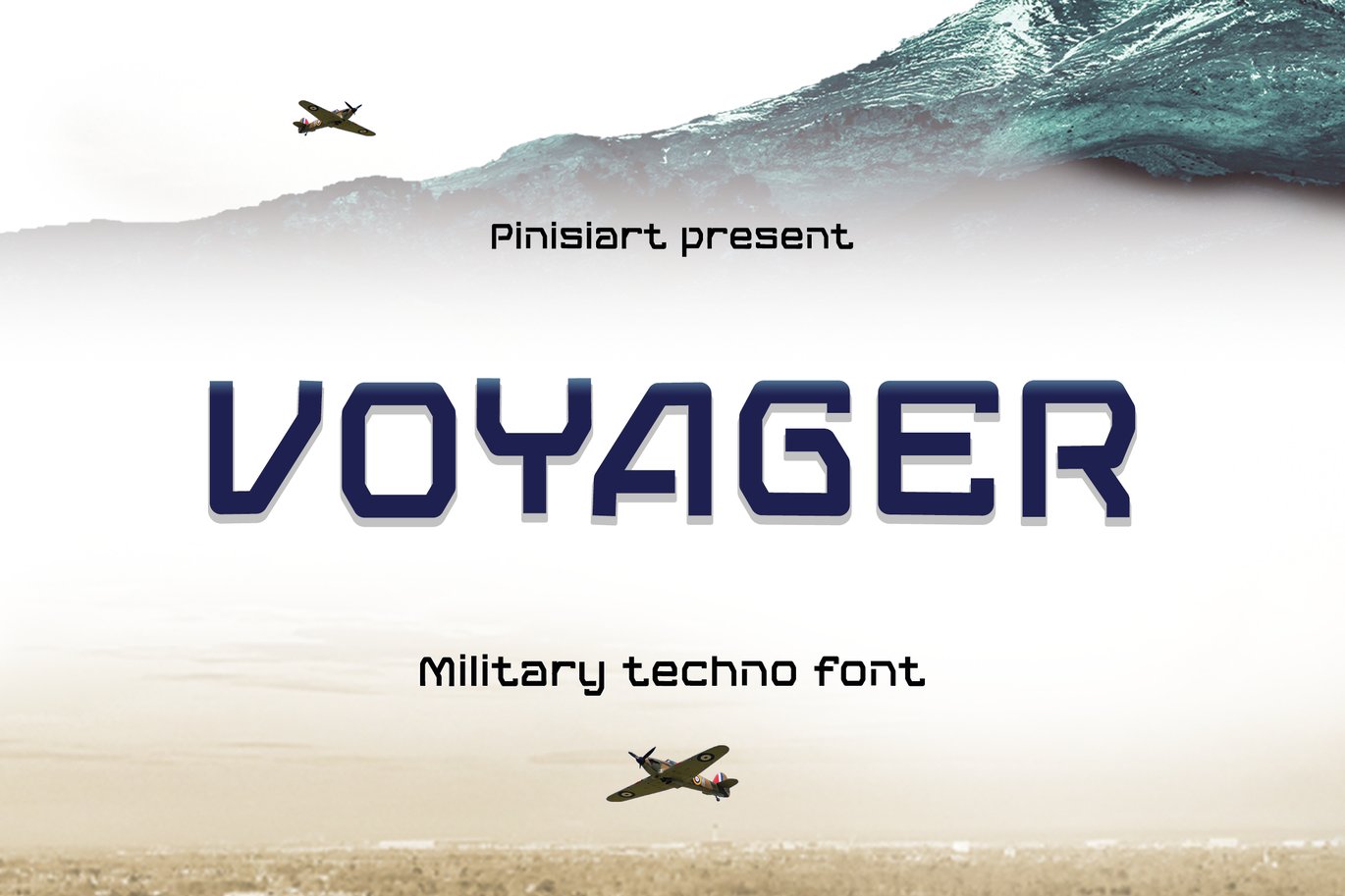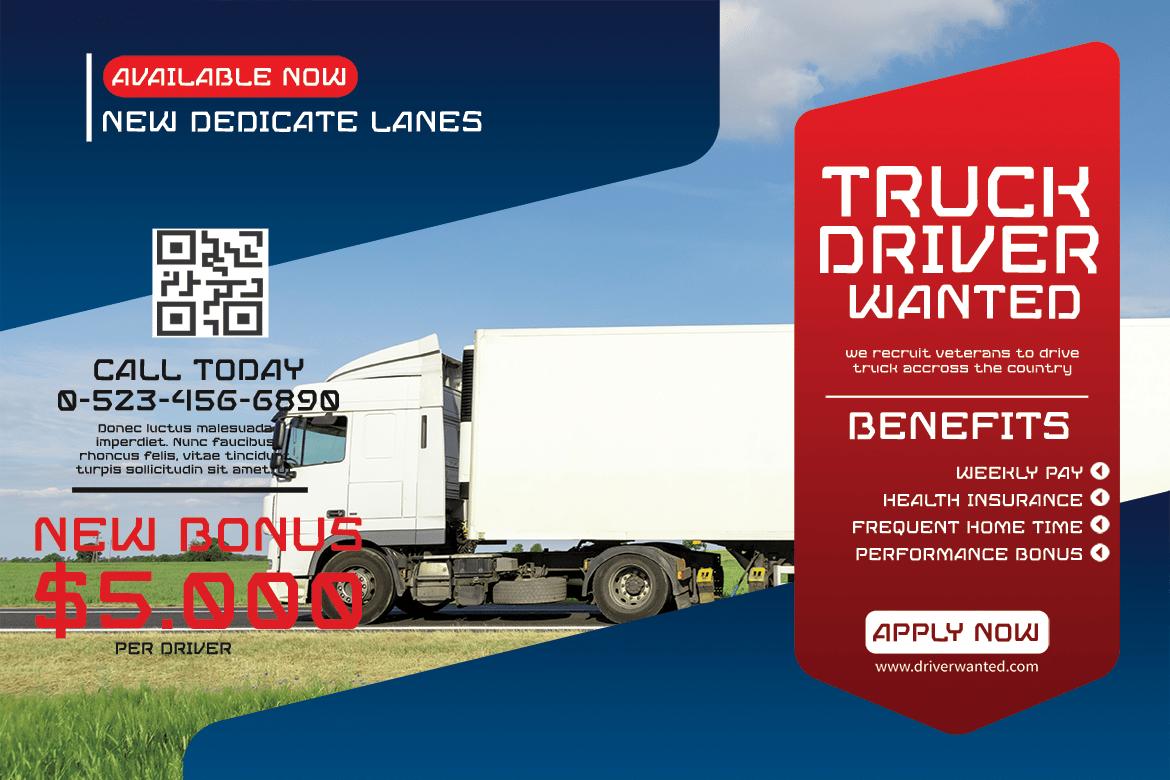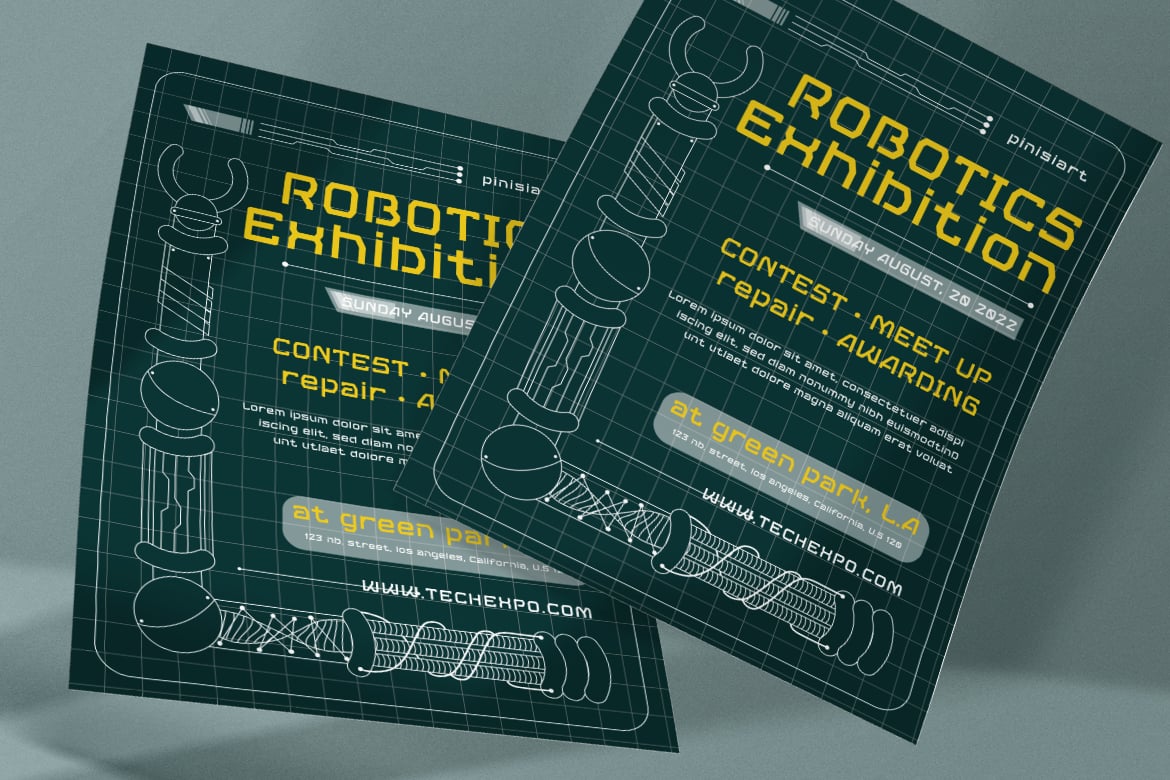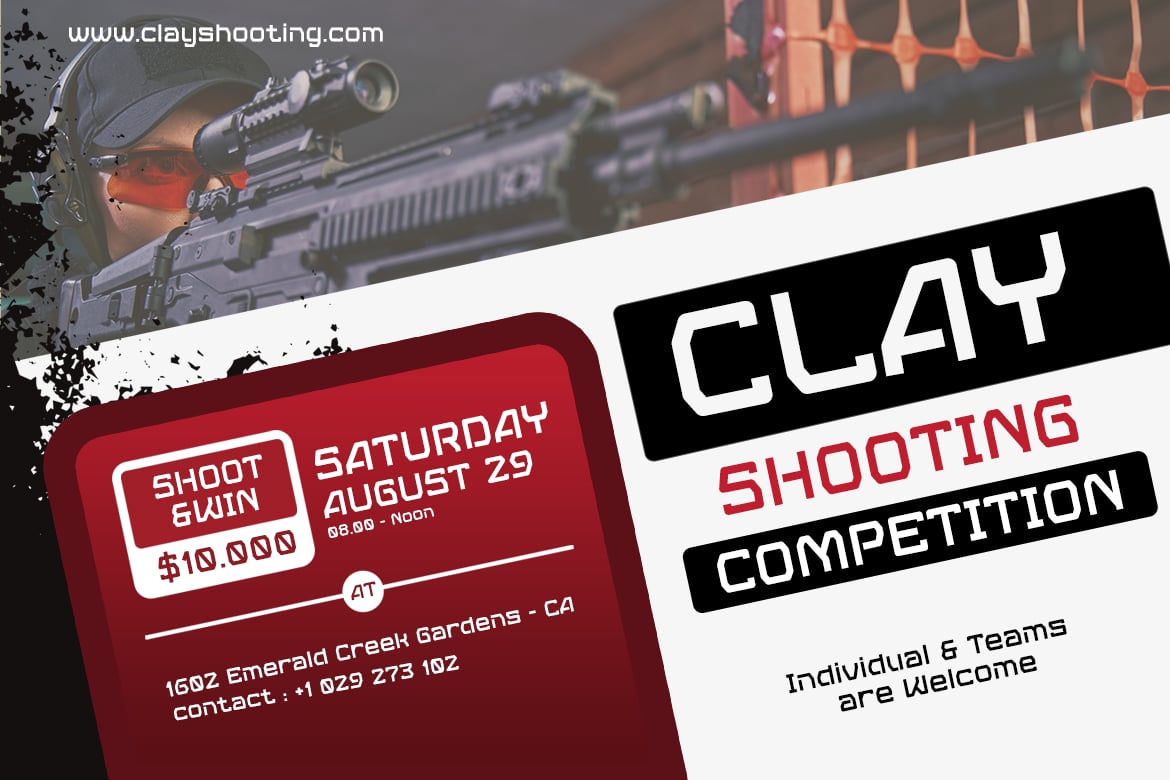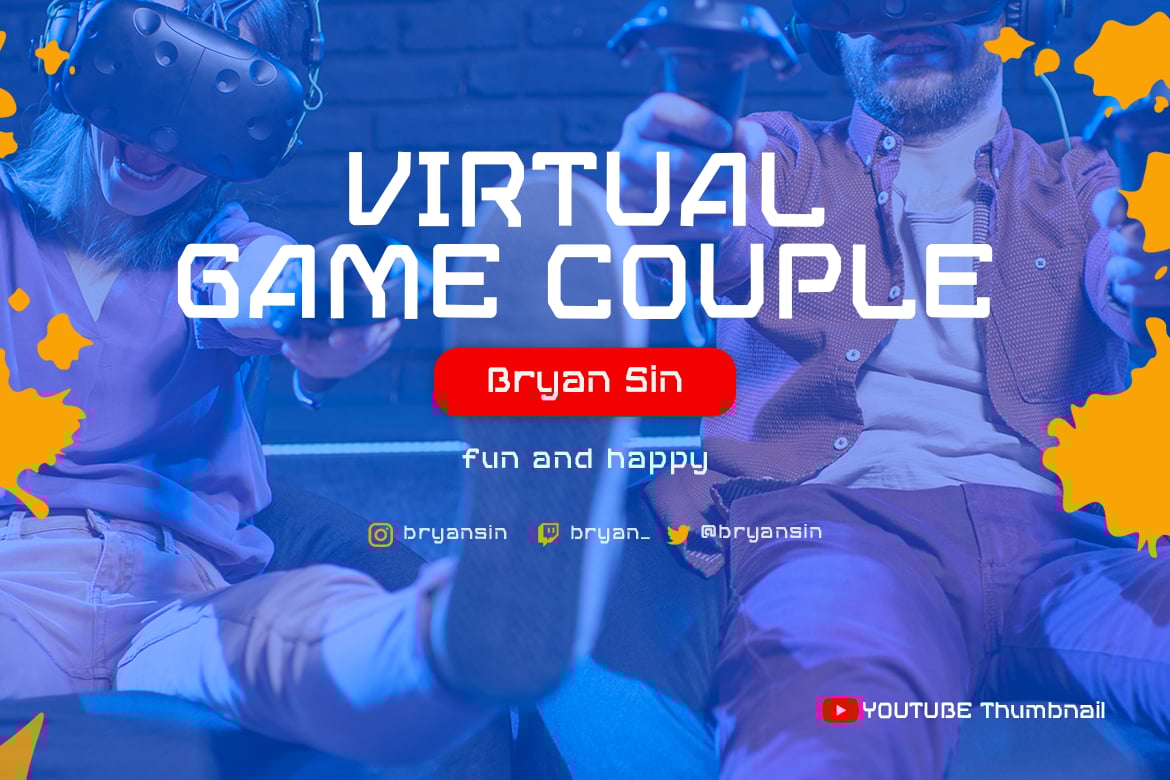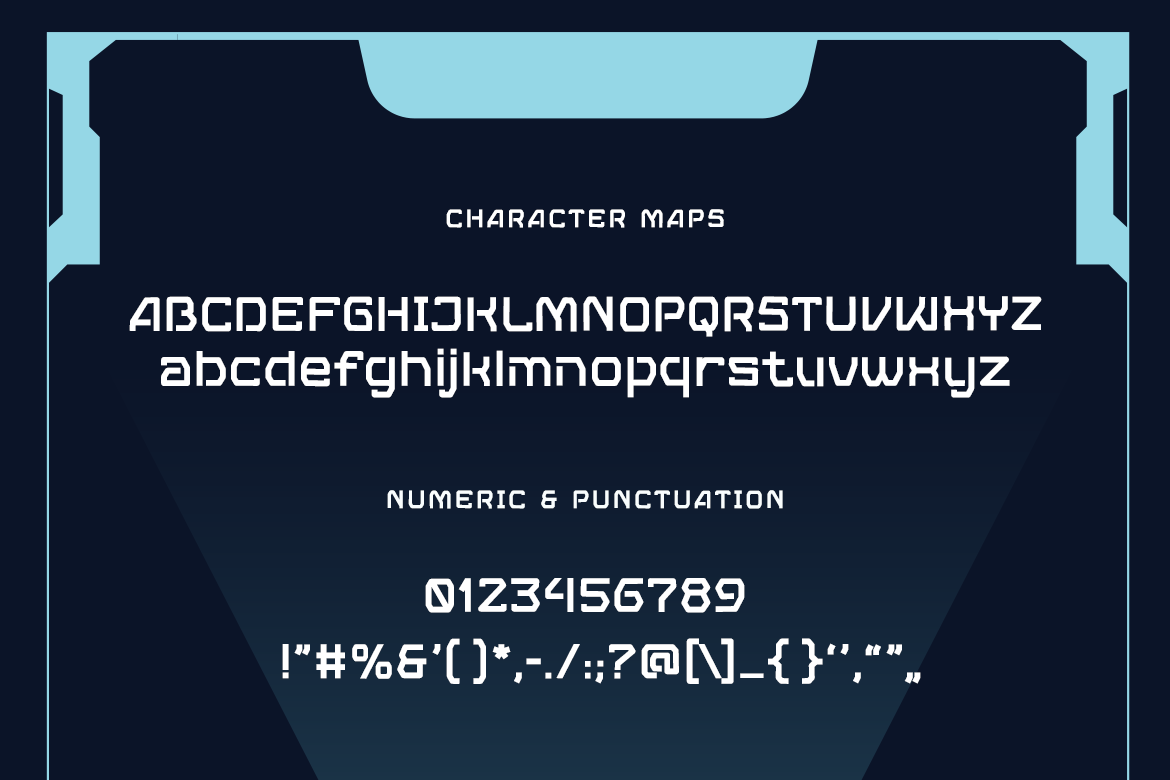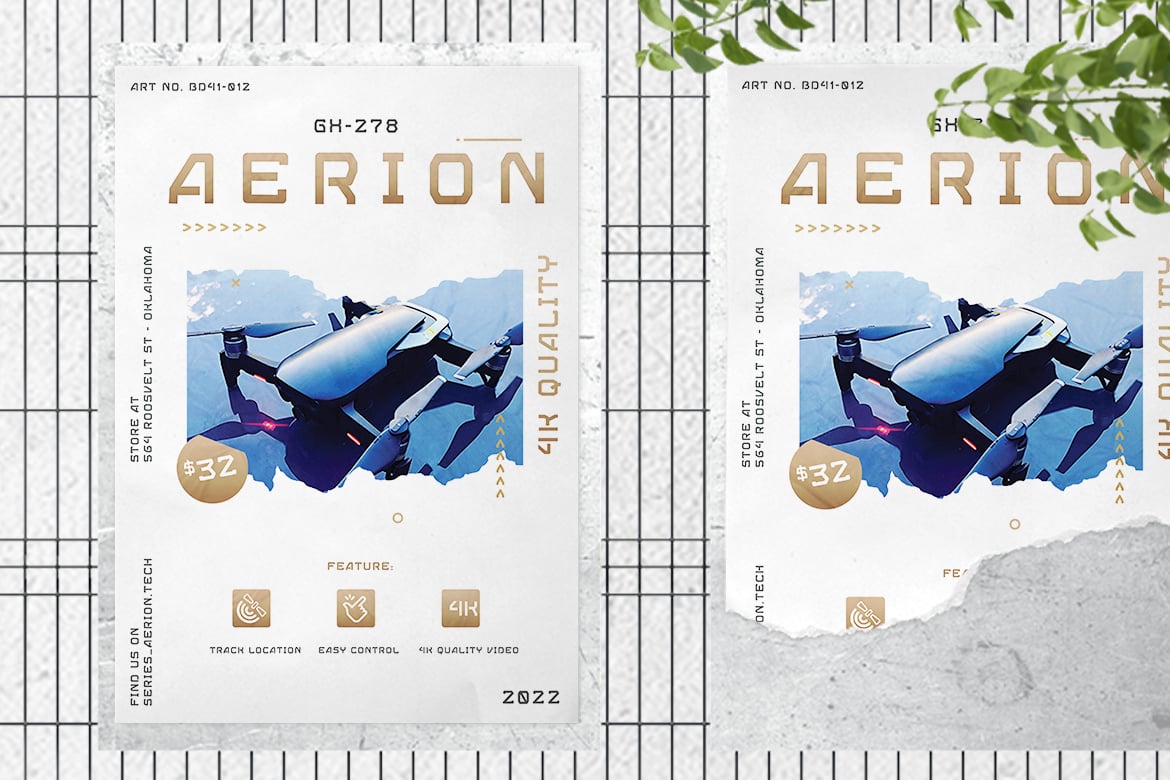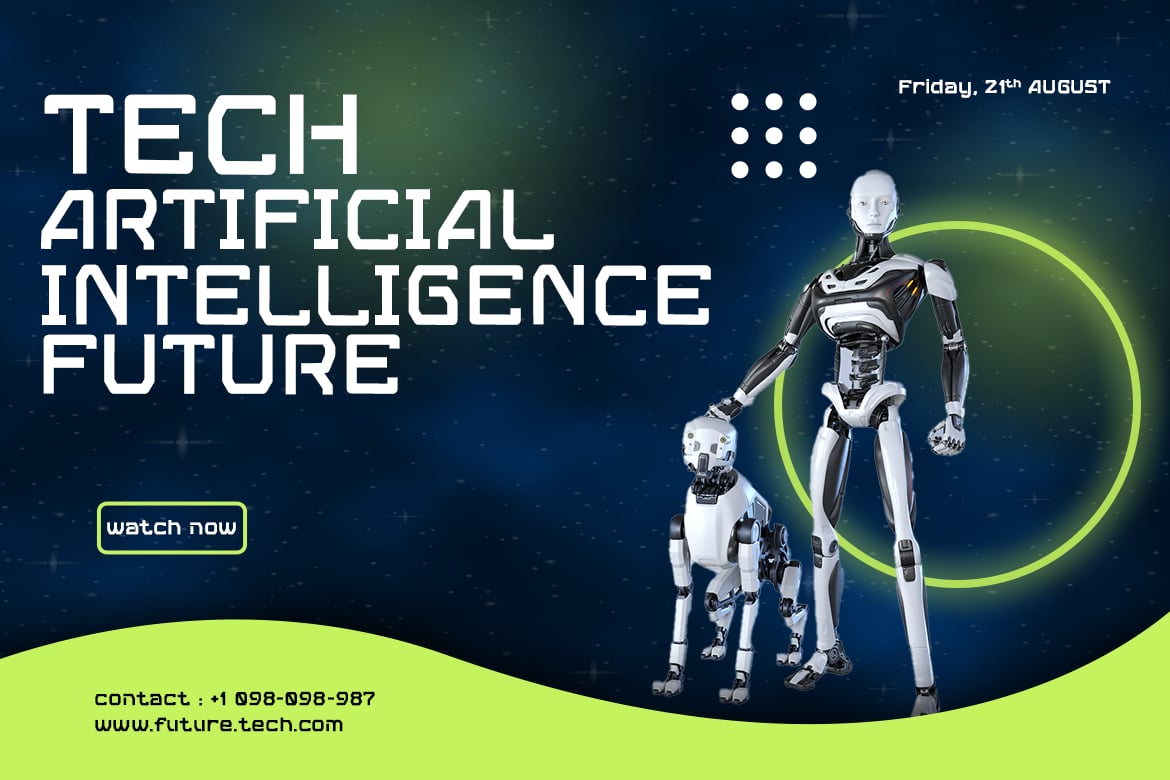
VOYAGER – Military Techno Display Font
Robotic, military tech, and all about future technology. VOYAGER will give you the edge of it.
Suit perfectly for military science segmented magazine, poster, movie title, music poster, youtube covers, youtube thumbnails, social media page covers and so on…